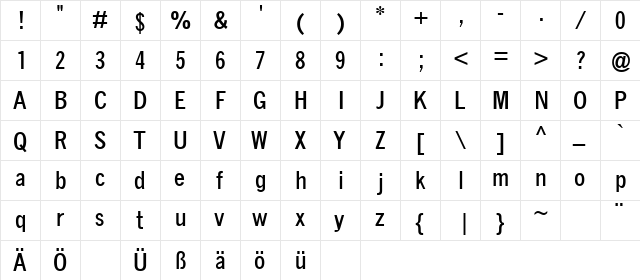
QuickType II Condensed Bold
Design Context for QuickType II Condensed Typeface
QuickType II Condensed is a composed and adaptable typeface that performs quietly and consistently across a wide range of design contexts. The heavy weight commands attention and anchors typographic hierarchies. Its narrow stance lets it pack a punch even in space-constrained designs.
Pro Tip: Use QuickType II Condensed in both headline and body roles to test its range before committing to a single application.